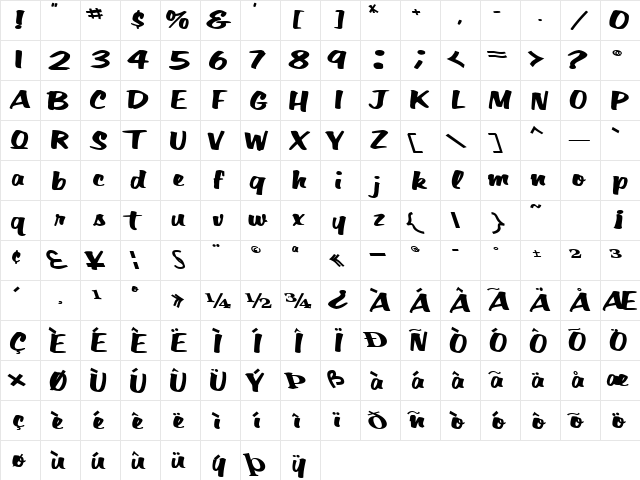
BigFictionText Bold
Design Context for BigFictionText Typeface
BigFictionText is a composed and adaptable typeface that performs quietly and consistently across a wide range of design contexts. Its bold stroke weight gives it real presence on the page.